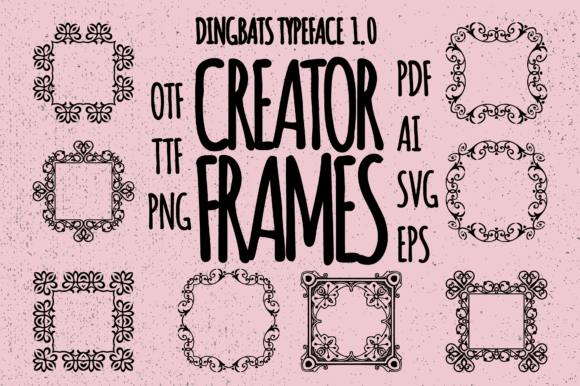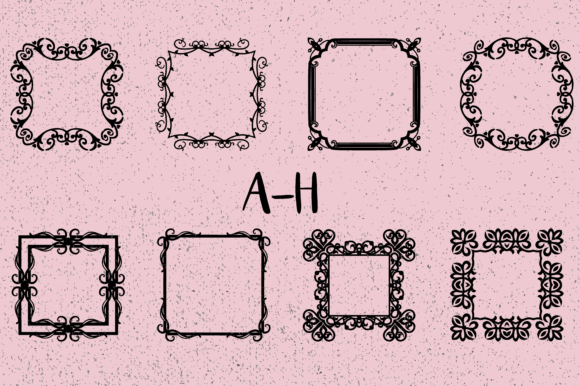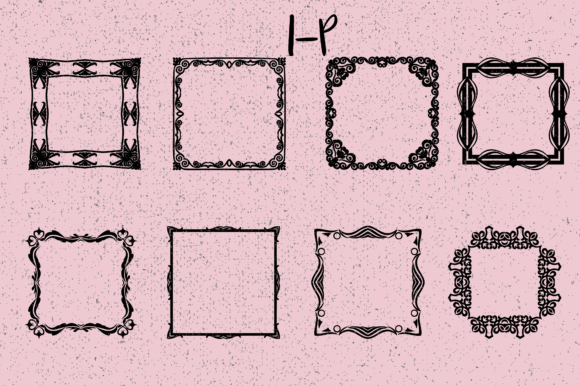
About Frames Creator 1.0 Font
Frames Creator 1.0 is indeed a cool and versatile dingbats typeface that offers a wide range of detailed frames, borders, flourishes, and swirls. Whether you’re working on graphic design projects, crafting, or adding decorative elements to your artwork, this font can be a valuable asset in your fonts’ library.
With its collection of 62 unique frames, borders, flourishes, and swirls, Frames Creator 1.0 provides you with a variety of options to enhance your designs. These elements can add elegance, sophistication, or a decorative touch to your creations, making them stand out and catch the viewer’s attention.
One of the strengths of Frames Creator 1.0 is its versatility. Regardless of the topic or theme of your project, this font can elevate your designs and give them a polished and professional look. Whether you’re working on invitations, posters, packaging, logos, or any other creative project, Frames Creator 1.0 offers a wide range of frames and decorative elements that can be easily incorporated into your designs.
The detailed nature of the frames, borders, flourishes, and swirls in this dingbats typeface adds a level of intricacy and visual interest to your artwork. You can mix and match different elements, combine them with typography, or use them as standalone decorative elements to create visually appealing compositions.
In summary, Frames Creator 1.0 is a versatile and cool dingbats typeface that offers a variety of detailed frames, borders, flourishes, and swirls. It is a valuable asset in your fonts’ library, capable of elevating any creation and adding a touch of sophistication. Explore the possibilities of Frames Creator 1.0 and enhance your designs with its decorative elements.